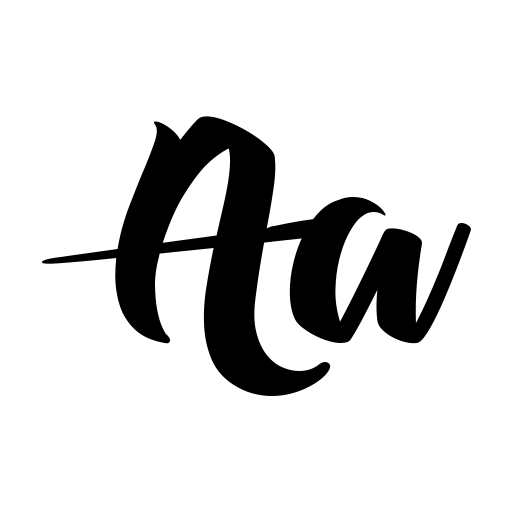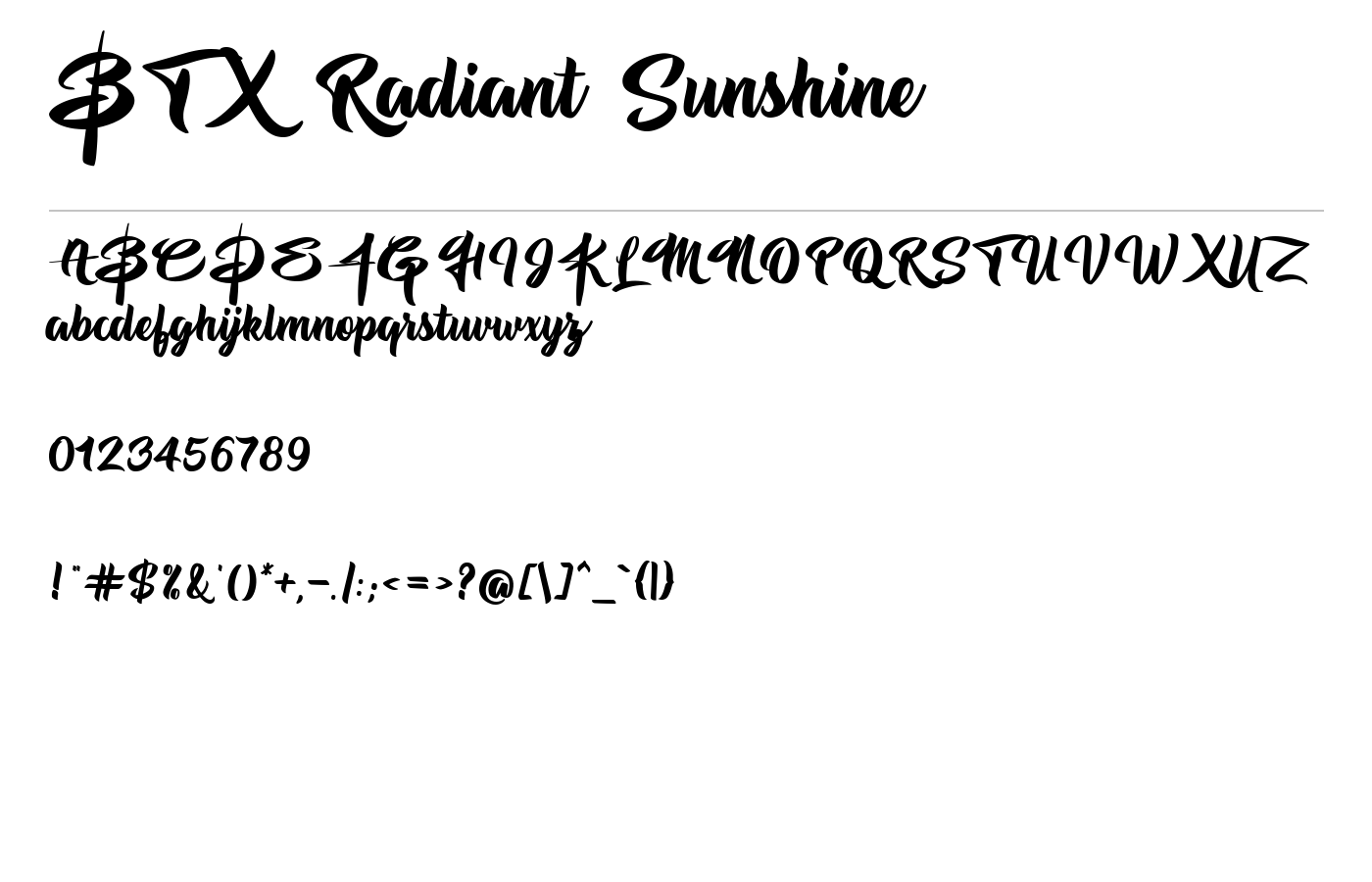
BTX Radiant Sunshine is a bold, playful script font with a lively, hand-painted feel. Its thick and energetic strokes, combined with unique letter shapes and smooth curves, make it perfect for eye-catching headlines, logos, and creative designs that need a fun and inviting personality. This font works especially well where a sense of warmth and casual charm is desired, such as branding, invitations, and packaging.
BTX Radiant Sunshine Font
About BTX Radiant Sunshine Font
| Font family | BTX Radiant Sunshine Font |
| Languages supported | Latin, Symbols, Arabic |
| Designer | Euan Smith |